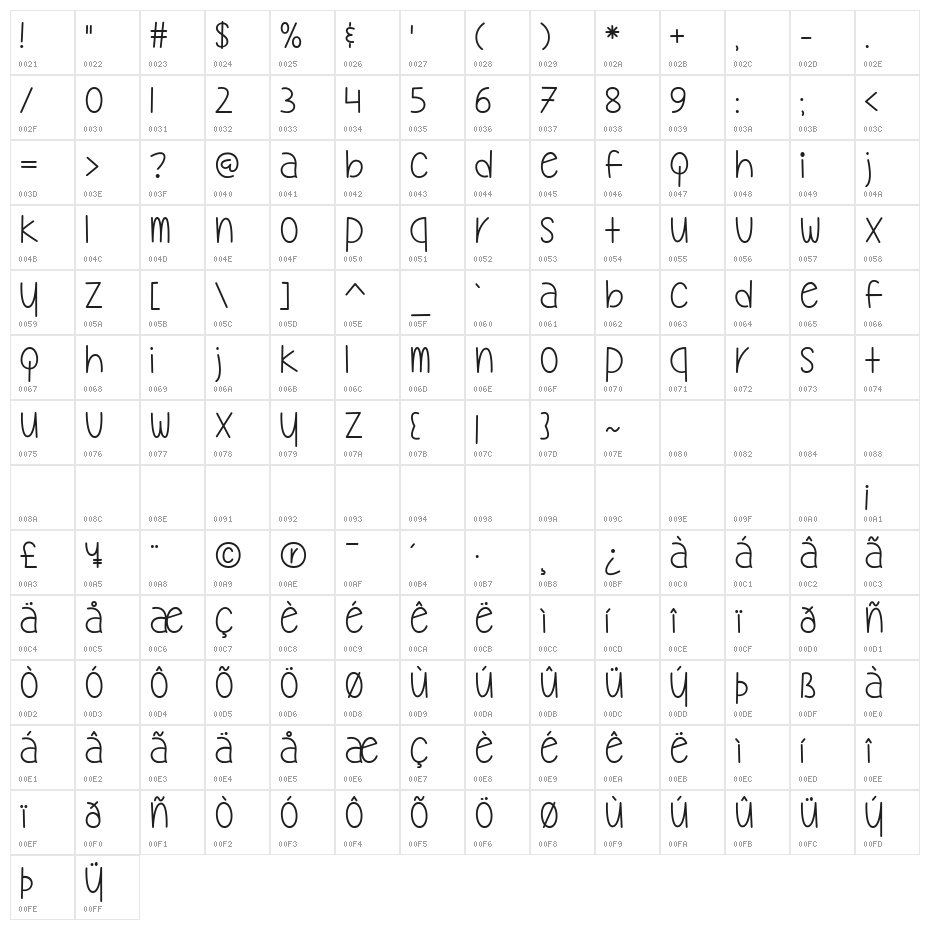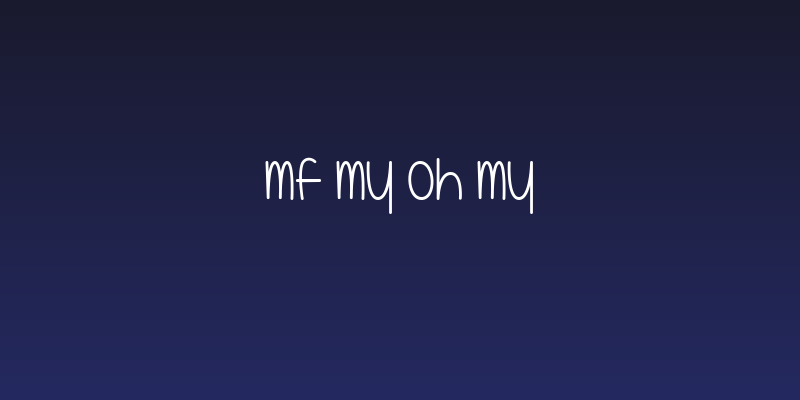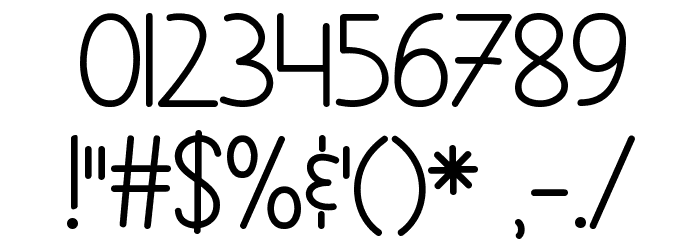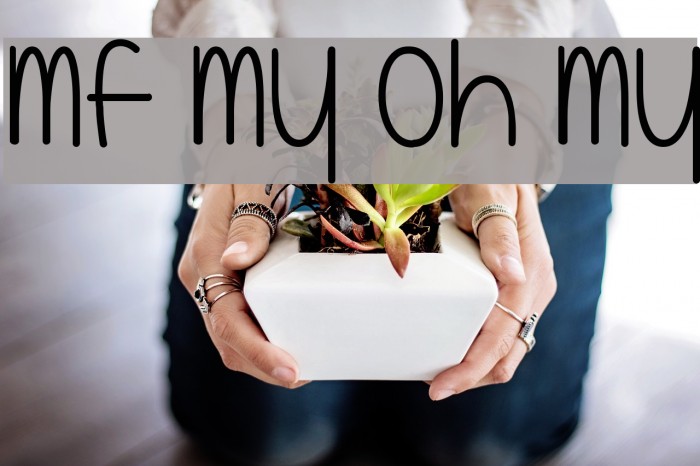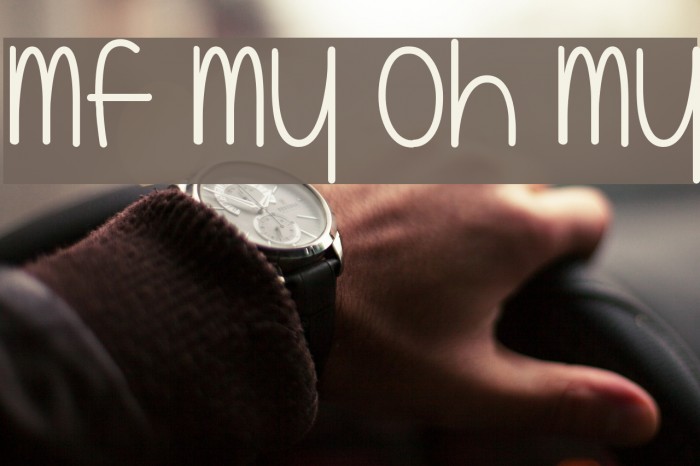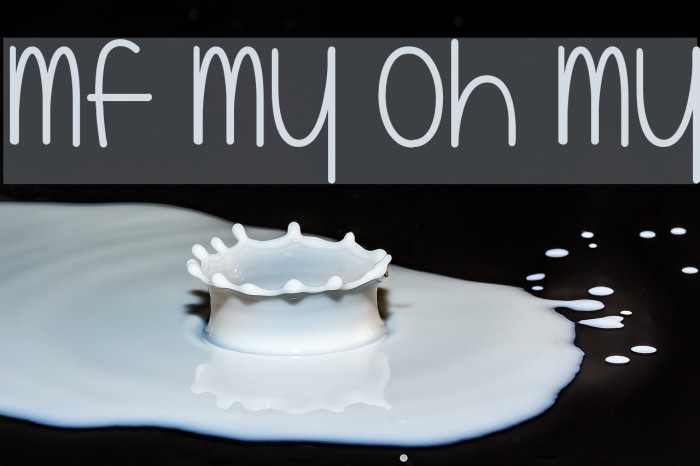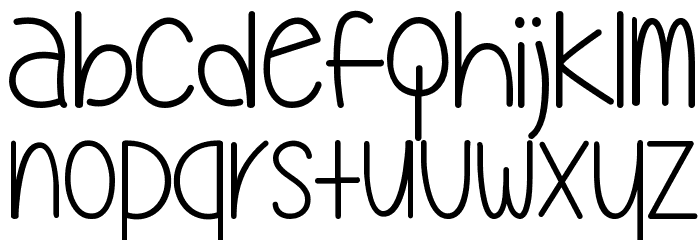
Mf My Oh My Font
This font features a playful and whimsical design with rounded, elongated letterforms that convey a sense of fun and creativity. The characters are evenly spaced, providing a clean and airy appearance. The lowercase letters have a consistent height, while the uppercase letters maintain a uniform width, creating a harmonious balance. The numbers and special characters are designed to match the overall style, ensuring a cohesive look across all text. This font is ideal for projects that require a lighthearted and approachable aesthetic.